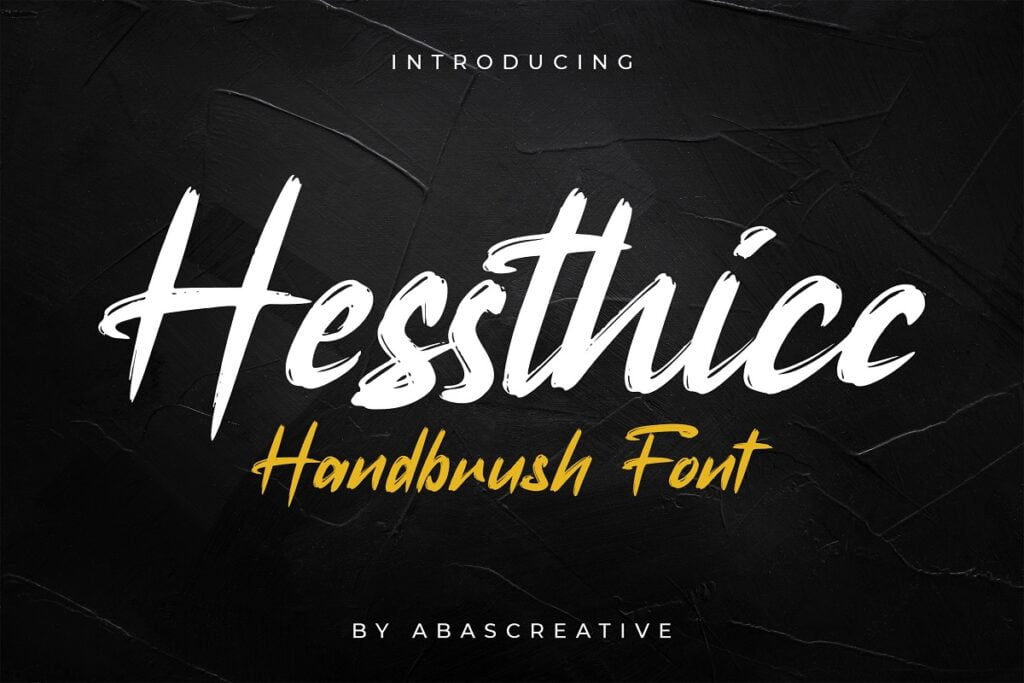
Hessthicc Handbrush Script Font
Hessthicc results out of a stunning pairing of a brush pen and pencil that makes it look incredibly endearing and authentic. Use this gorgeous and unique handwritten font to bring any DIY project to life!
Perfect for projects posters, logos, product packaging, invitations, greeting cards, brands, news, blogs, everything including personal charm etc.